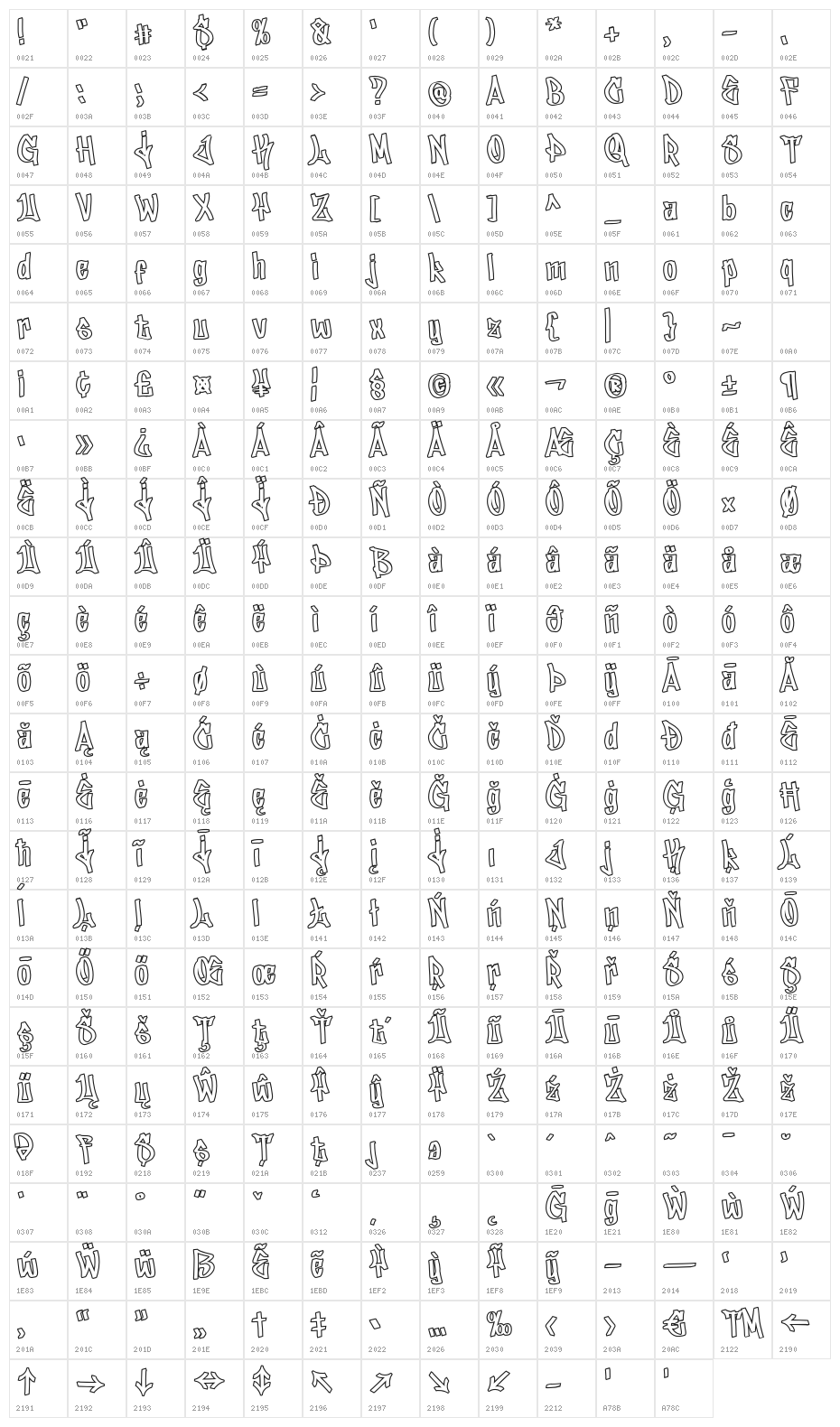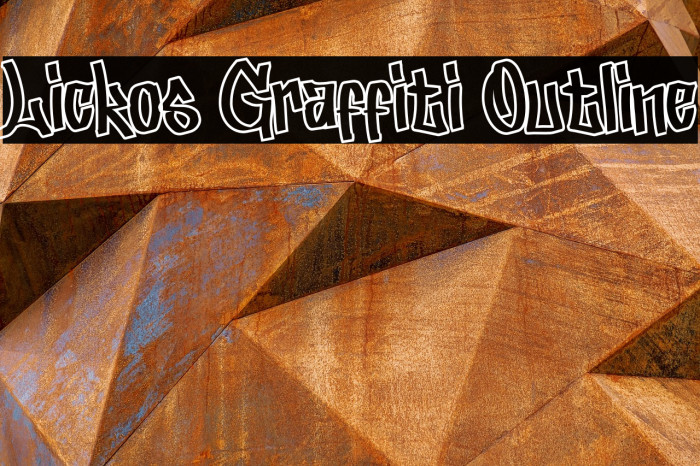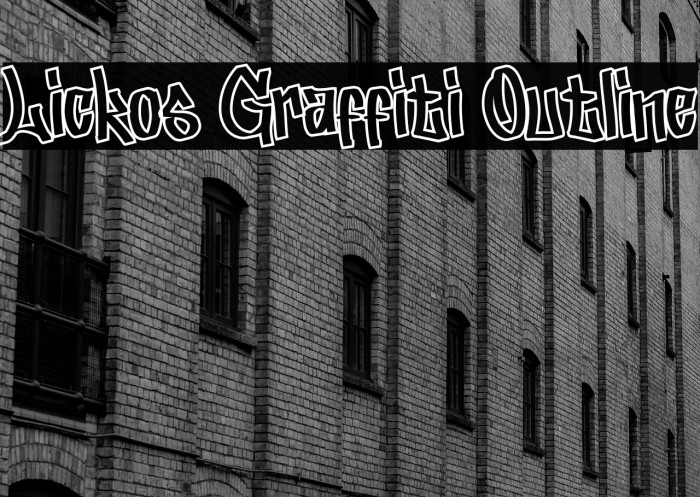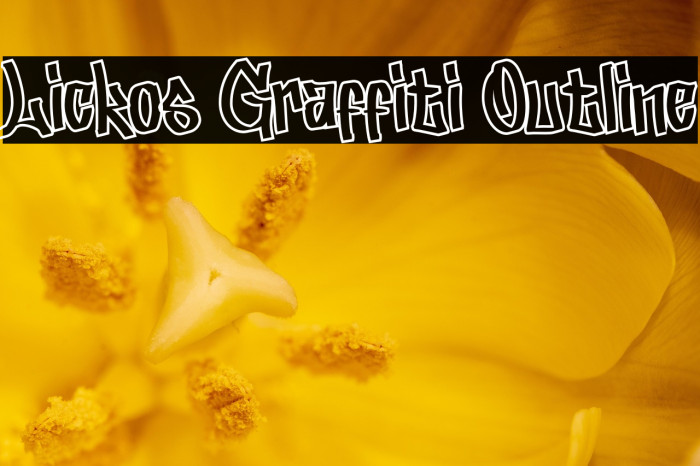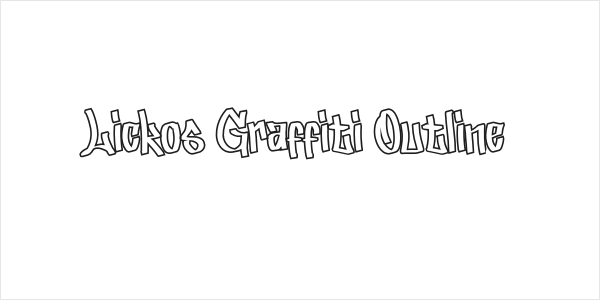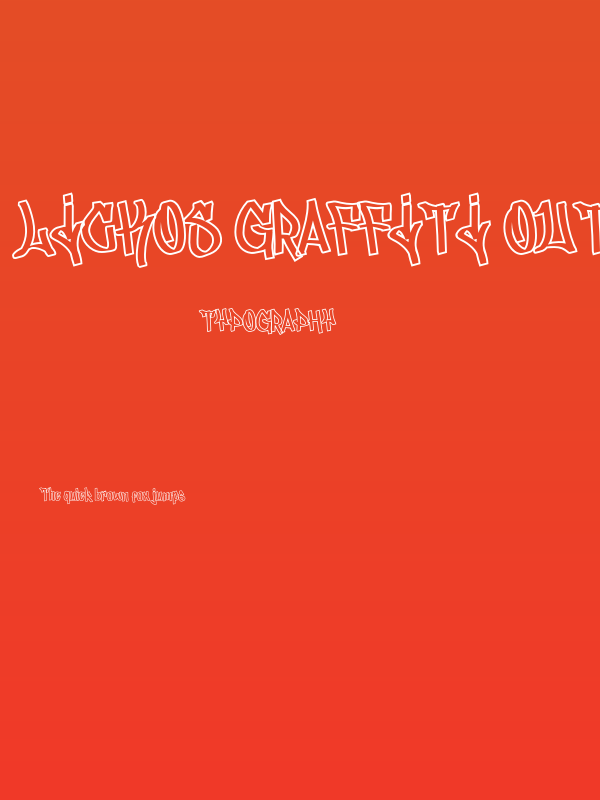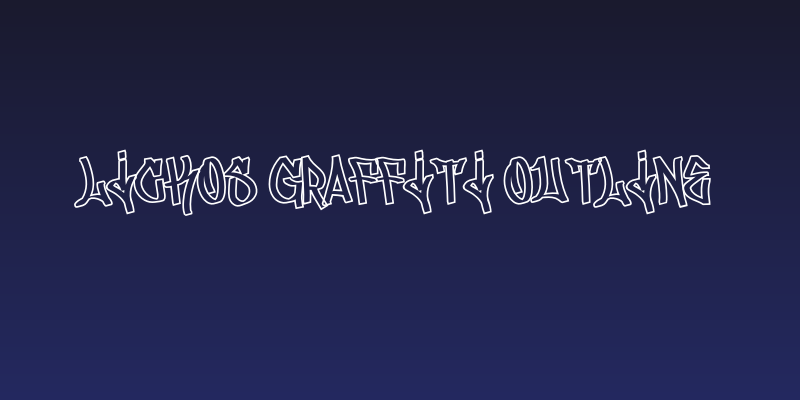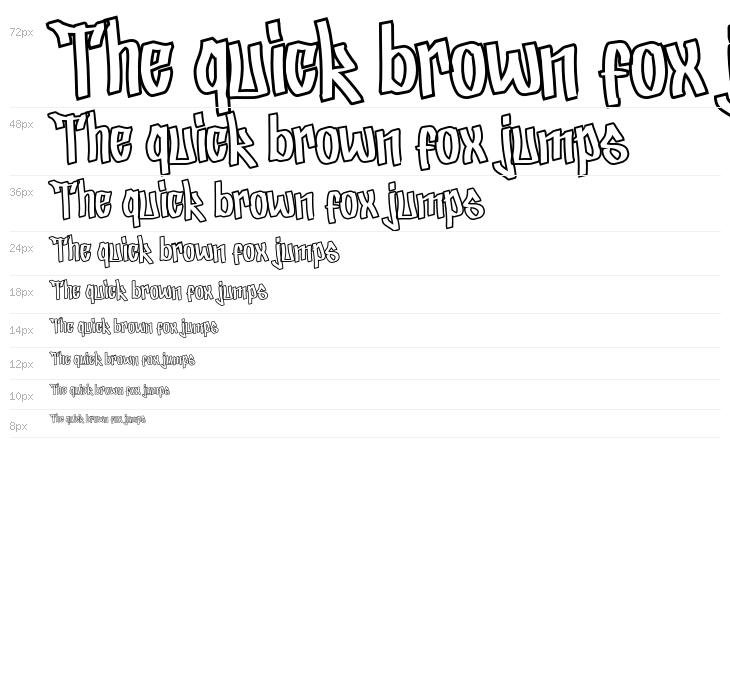
Lickos Graffiti Outline Font
Lickos Graffiti Outline Description
This font captures the essence of urban street art with its bold, graffiti-inspired outline style. Each character is uniquely crafted with sharp angles and dynamic curves, giving it a lively and energetic feel. The uppercase and lowercase letters maintain a consistent style, ensuring readability while preserving the artistic flair. The numbers and special characters are equally expressive, adding versatility to the font. Its outline design allows for creative color fills, making it perfect for vibrant and eye-catching designs.
| Overall Style | Urban, Energetic, Artistic |
| Proposed Projects | Ideal for street art projects, urban-themed posters, music album covers, and event flyers. |